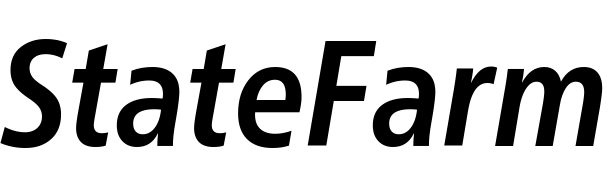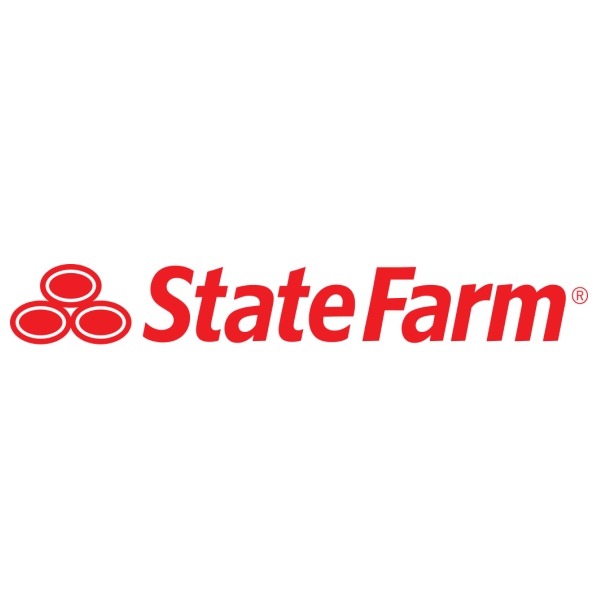
State Farm Font
FinanceState Farm is a large insurance and financial services company based in the United States. They offer a variety of insurance products, including auto, home, life, and health insurance.
The font used in the State Farm logo is a modified version of Frutiger Bold Condensed Italic, which was designed by Swiss designer Adrian Frutiger. Frutiger is a humanist sans-serif typeface and you can learn more about it here.